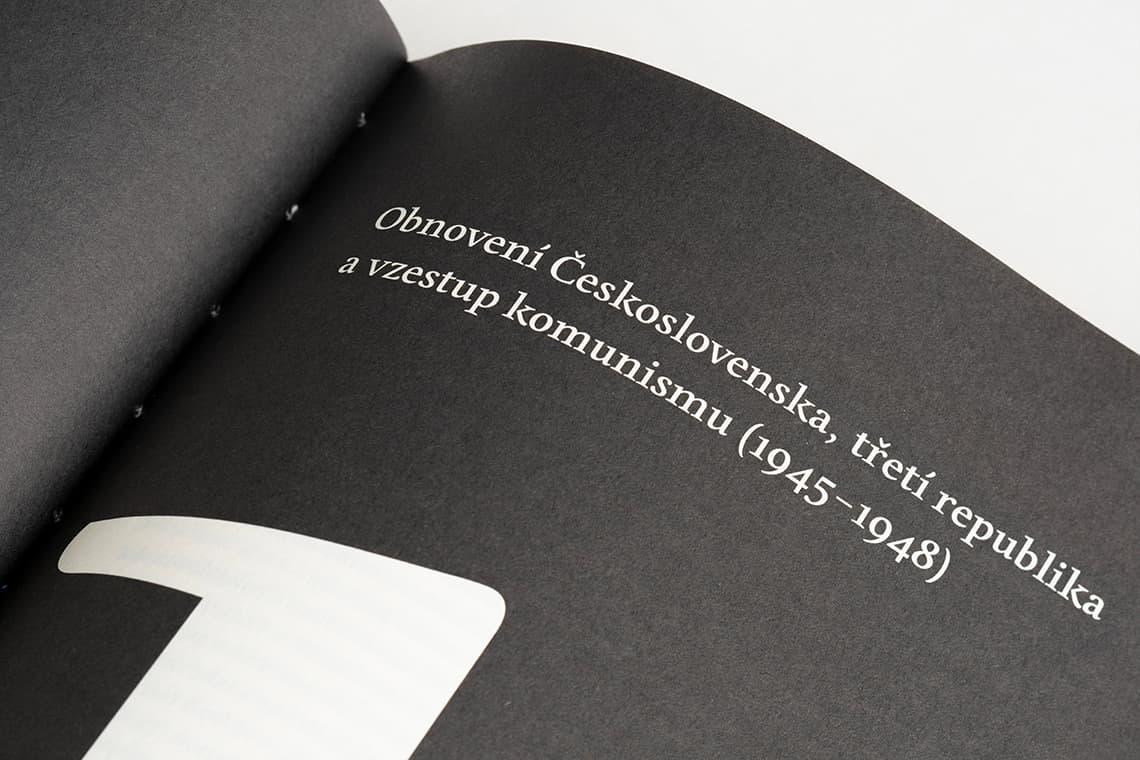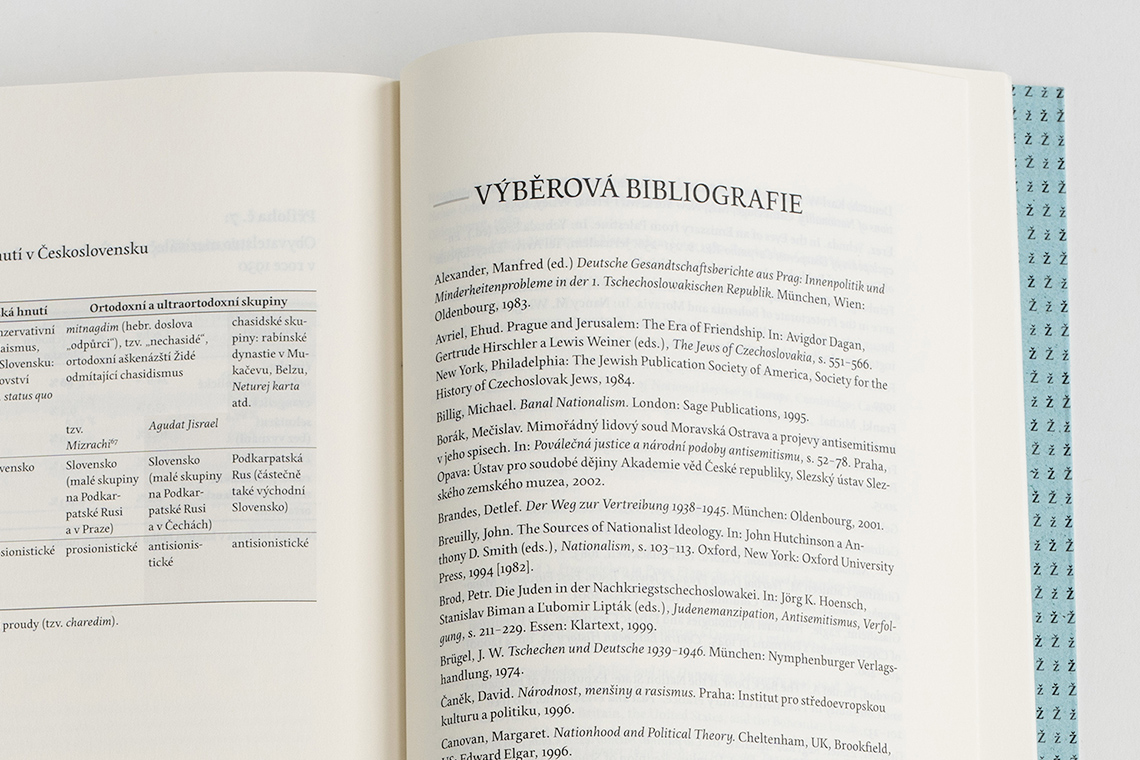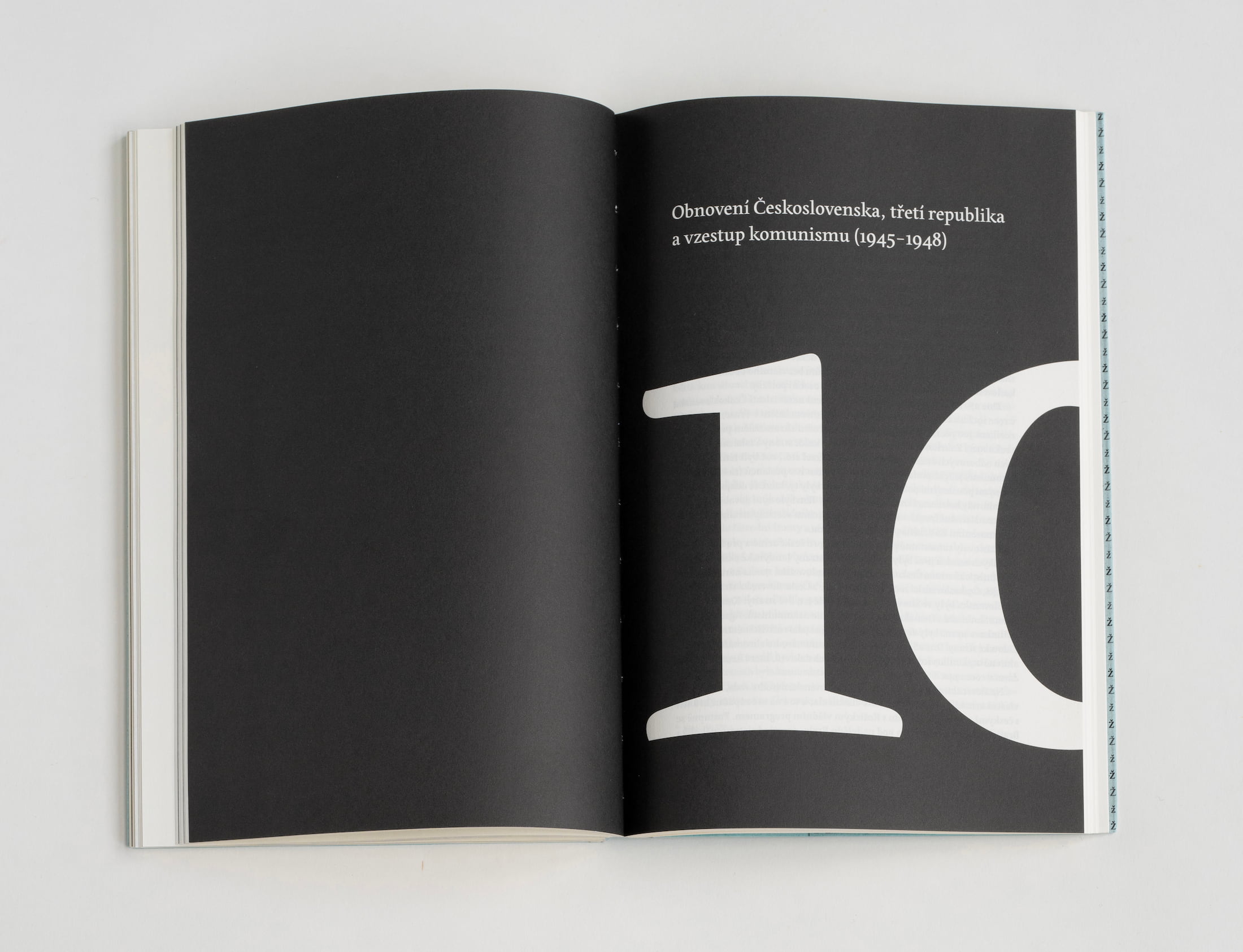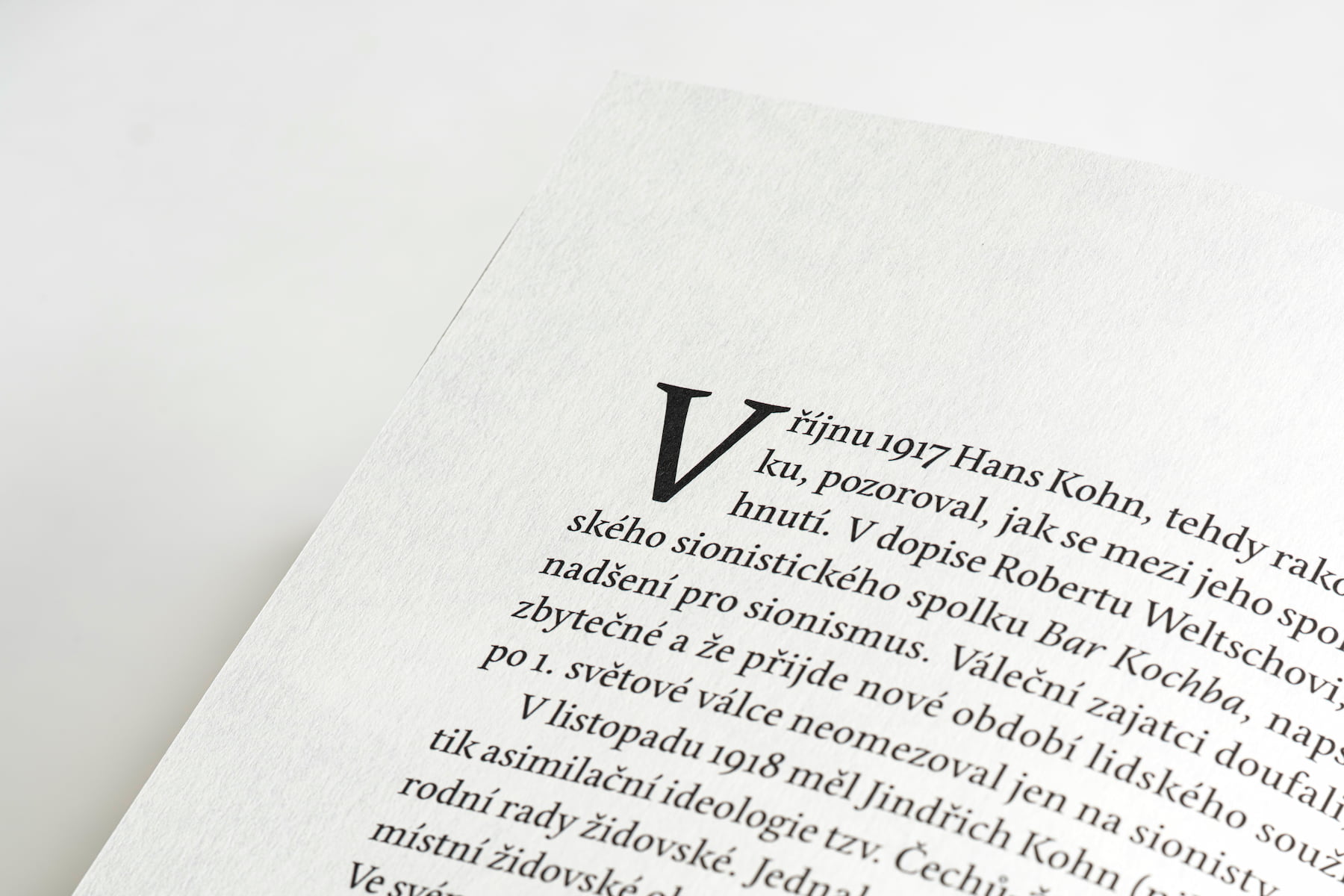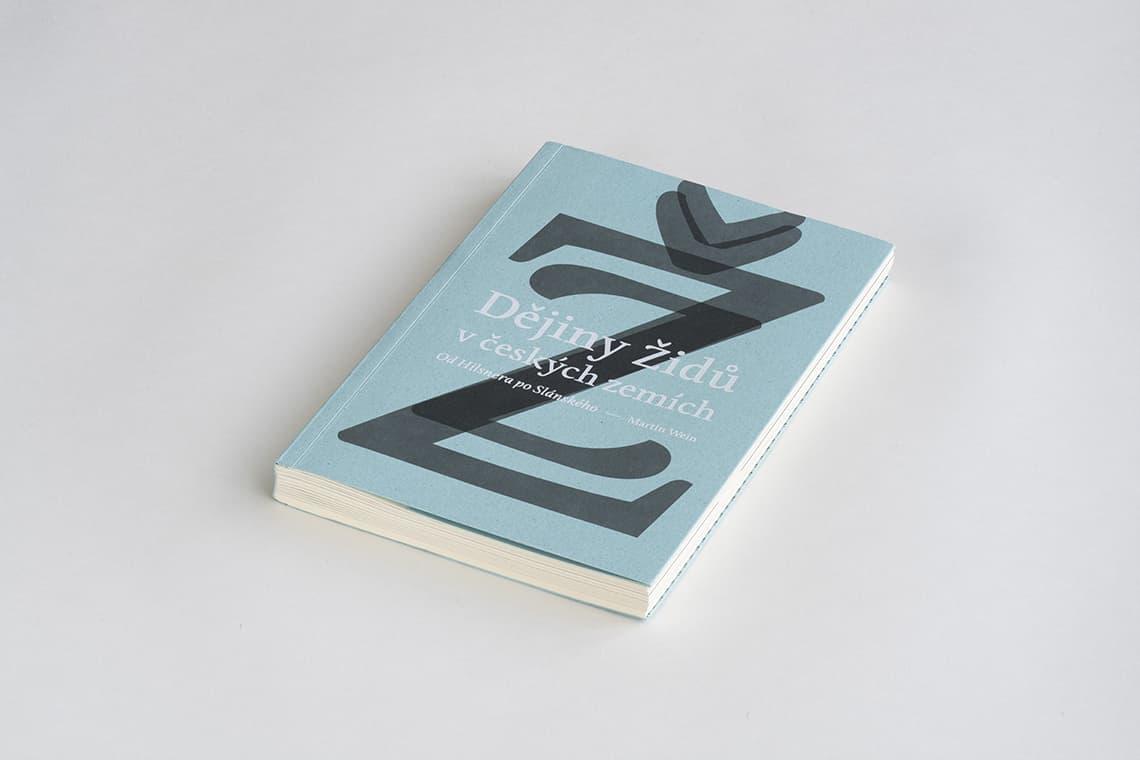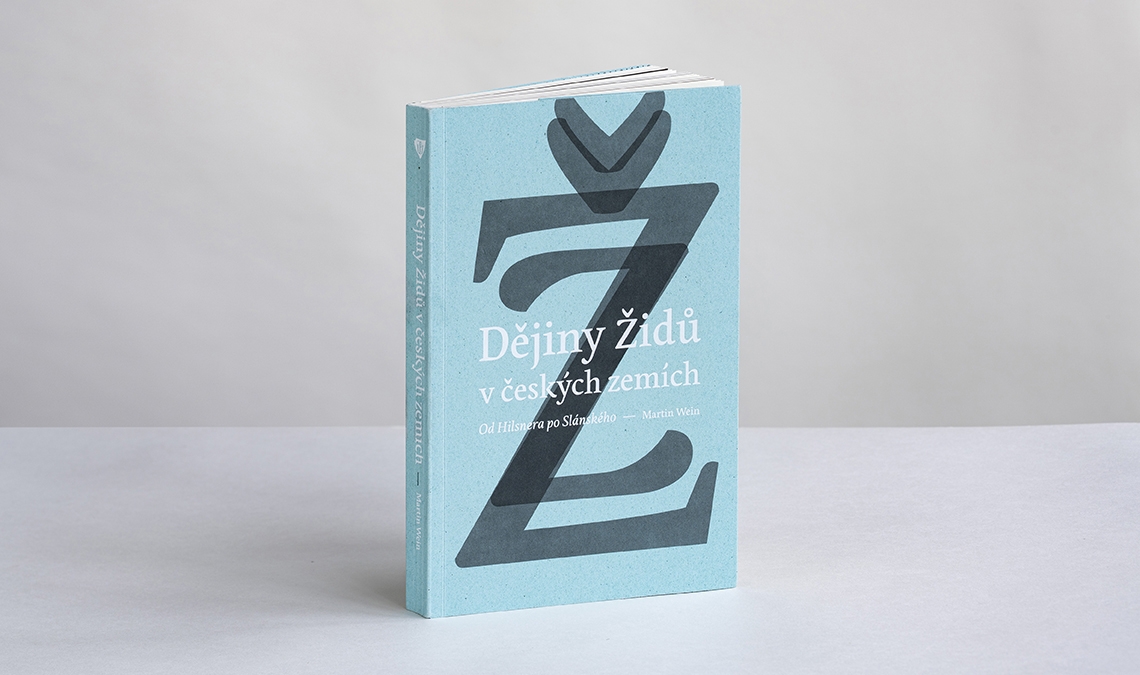
Edita in “History of the Jews in the Bohemian lands”
For the Czech translation of Martin Weis’s book History of the Jews in the Bohemian lands, designer Markéta Cole of Ask Designers chose Pilar Cano’s Edita typeface.
The book’s full Czech title is Dějiny Źidů v českých zemích: Od Hilsnera po Slánského, and in it Martin Wein traces the interaction mainly of Czechs and Jews, but also of Christian German-speakers, Slovaks, and other groups in the Bohemian lands and in Czechoslovakia throughout the first half of the 20th century. This period saw accelerated cycles of nation-building and nation-cleansing in the context of hegemony exercised by a changing cast of dominant powers, namely Austria-Hungary, France, Nazi Germany, and the Soviet Union.
Pilar Cano’s Edita typeface is an apt choice for such an important topic. Edita is humanist in concept yet with a contemporary feel where softness and fluidity play a very important role. This is especially seen in its italics, which are loosely based on handwriting.
Edita is intended to be used complementarily in books where text is set together with photographs and other graphic elements. However, it is versatile enough to be used in many other contexts, from novels and dictionaries to promotional material.